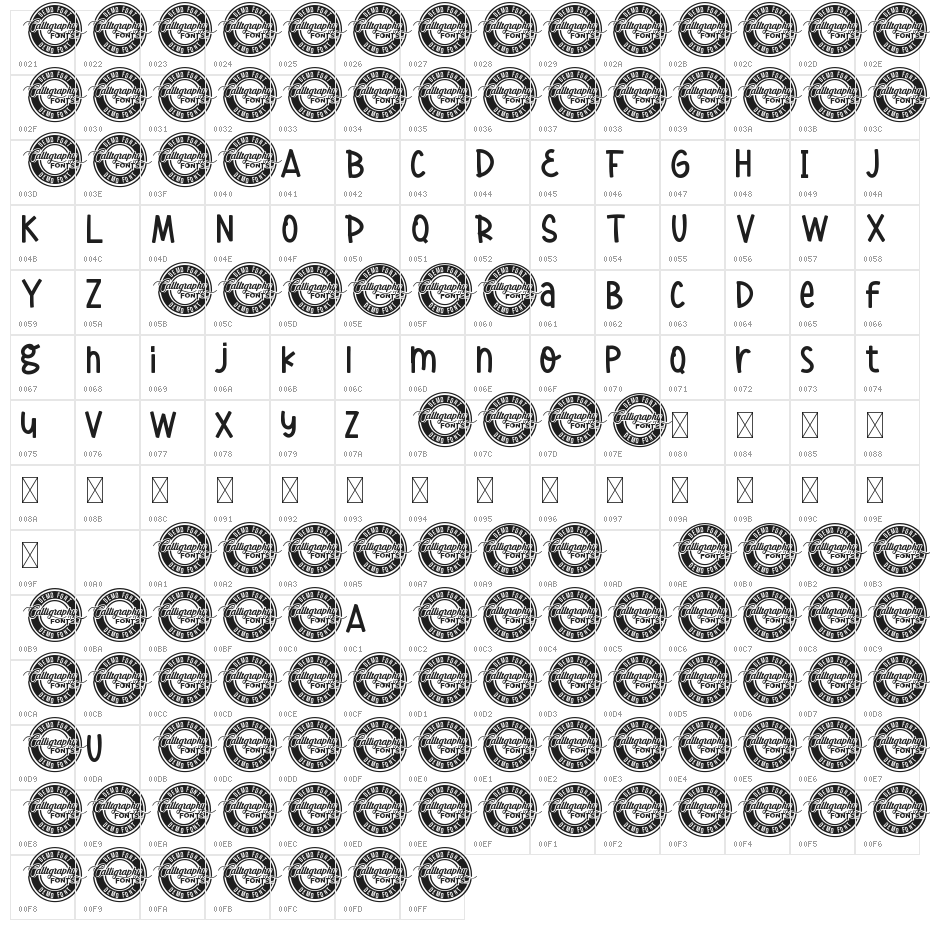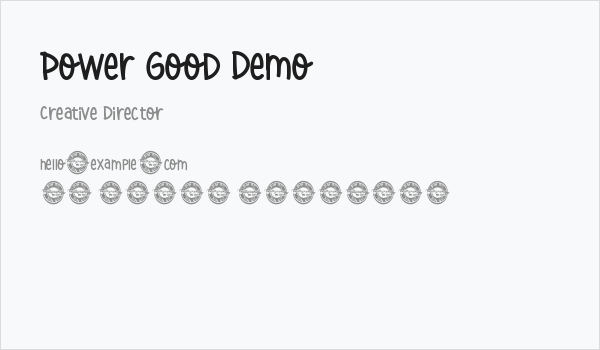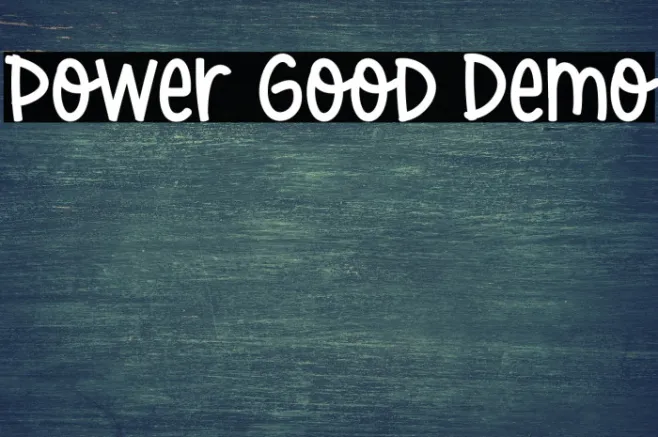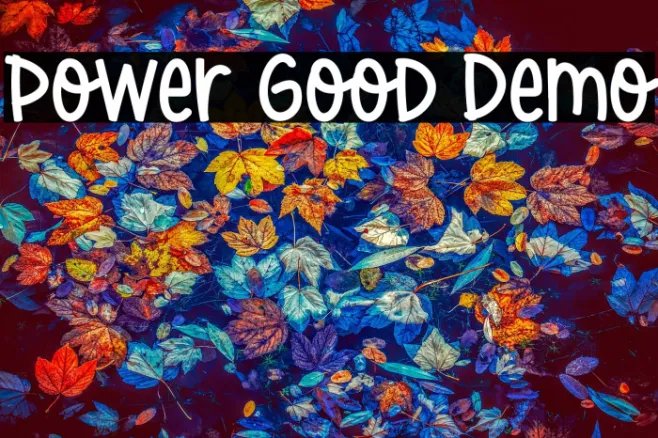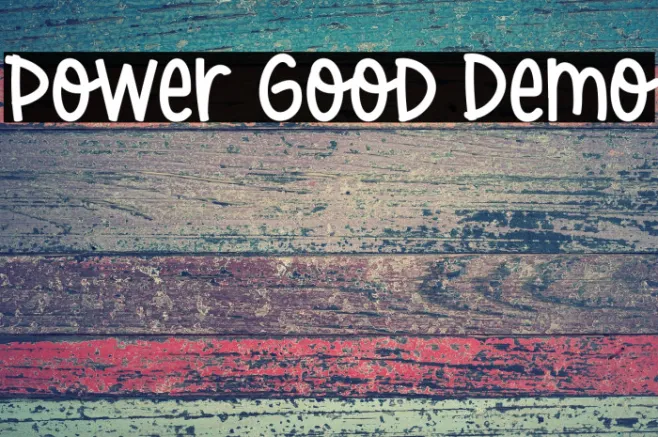
Power Good Demo Font
Power Good Demo Description
This font features a playful and informal style, characterized by its rounded and slightly irregular letterforms. The uppercase letters are bold and prominent, while the lowercase letters maintain a consistent flow with a whimsical touch. The font exhibits a hand-drawn quality, adding a personal and friendly feel to any text. The characters are well-spaced, ensuring readability even at smaller sizes. This font is versatile, suitable for a variety of creative projects where a casual and approachable tone is desired. Its unique style makes it stand out, making it ideal for branding, posters, and social media graphics.
| Overall Style | Playful, Informal |
| Proposed Projects | Ideal for branding, posters, social media graphics, and any project requiring a casual, friendly tone. |